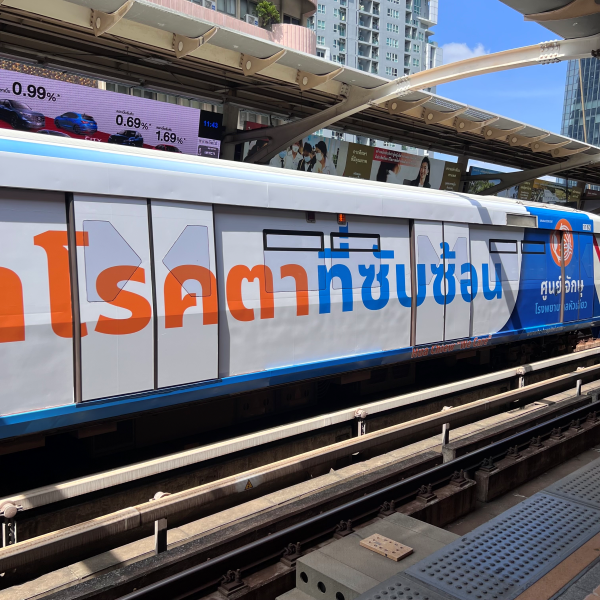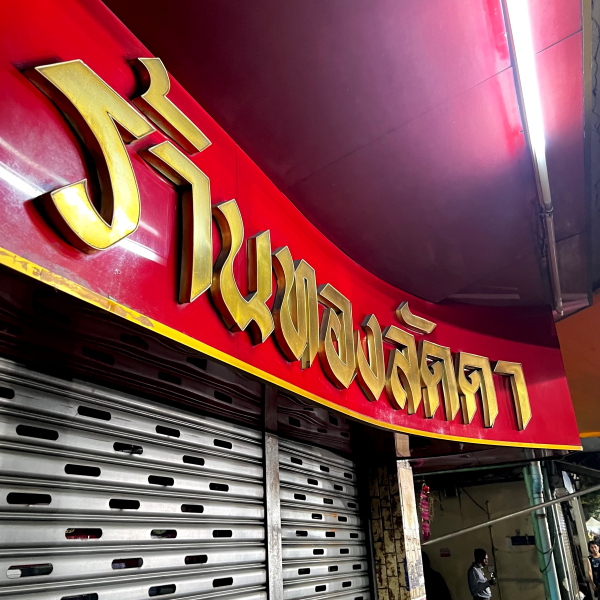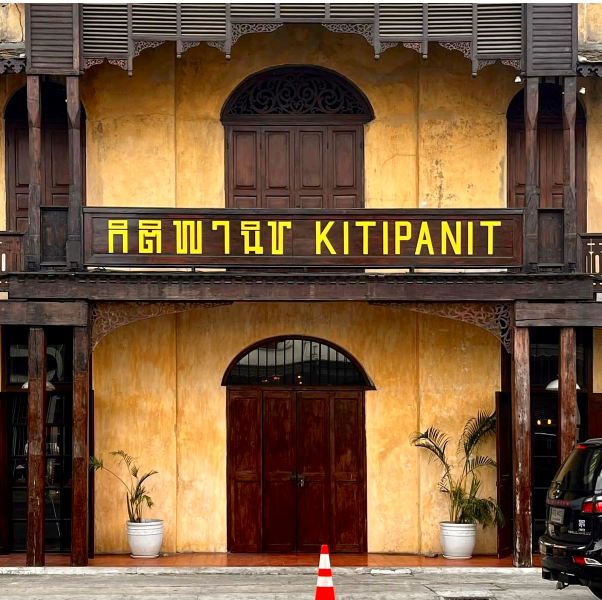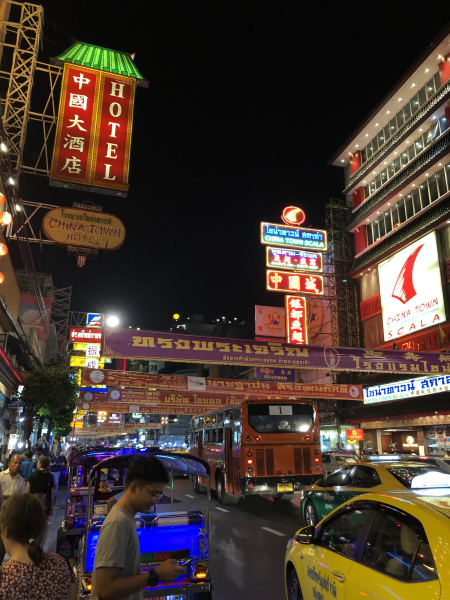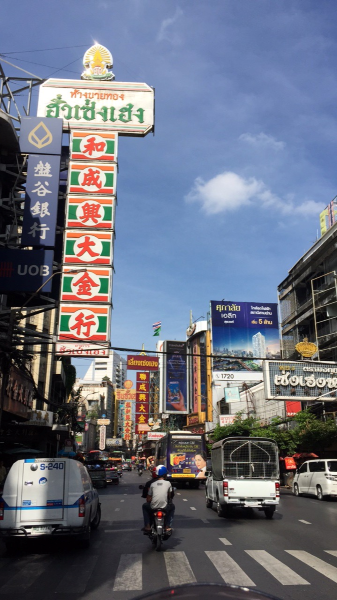
Type Around the World – Get to Know Bangkok, Thailand
This time, get to know Bangkok, Thailand with Nalat Jaturapattarapong of Cadson Demak.
2. Tell us about your city. What do you love about it? What’s distinctive about it?
Bangkok is a city of contrasts — vibrant, chaotic, and full of hidden beauty. It’s where modern skyscrapers and shopping malls stand shoulder to shoulder with busy wet markets and street stalls, each with vernacular signs that reflect Thailand’s rich cultural identity.
A typical old-meets-new street scene in Bangkok, filled with street signs.
A typical old-meets-new scene in Bangkok.
Tradition and innovation coexist here in fascinating ways, from centuries-old scripts tucked away in quiet corners to bold, experimental typefaces emerging from its creative core. There’s always something unexpected to uncover, and that constant interplay of old and new is what makes Bangkok so inspiring.
3. Where would you take someone visiting your city for the first time to explore its creative heart?
I would take them to neighborhoods near the Chao Phraya River, specifically Thanon Phra Athit (ถนนพระอาทิตย์) or Yaowarat Road (ถนนเยาวราช).
Yaowarat Road in Bangkok at night with bright street signs and busy streets.
Yaowarat Road in Bangkok.
These areas have a rich history. Thanon Phra Athit is known for its historic buildings and Yaowarat Road is known for its vibrant Chinatown culture. Both streets are filled with old lettering and vernacular signage that are fascinating to see — offering a unique glimpse into the city’s creativity and its evolving visual identity.
Classic signage on Thanon Phra Athit. 3D gold lettering on a red sign.
Classic signage on Thanon Phra Athit.
4. What’s a typeface that you think represents the spirit of your city and why? (Or, alternatively, what typeface is your city known for and why?)
Bangkok is so diverse that it’s hard to pick just one typeface to represent it! The traditional Thai letters you see on temples and old shop signs show the city’s rich heritage, while the cleaner, more contemporary styles on billboards reflect its fast-paced city vibe.
Modern lettering on a Bangkok train.
A vintage shop sign in Bangkok.
A vintage shop sign.
You’ll see this mix everywhere, from bustling street markets to sleek skyscrapers, and it perfectly captures Bangkok’s unique balance of old and new.